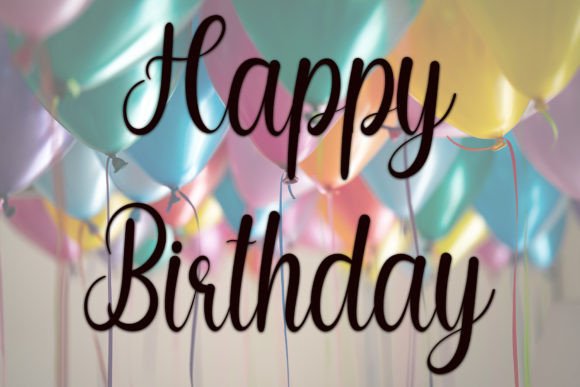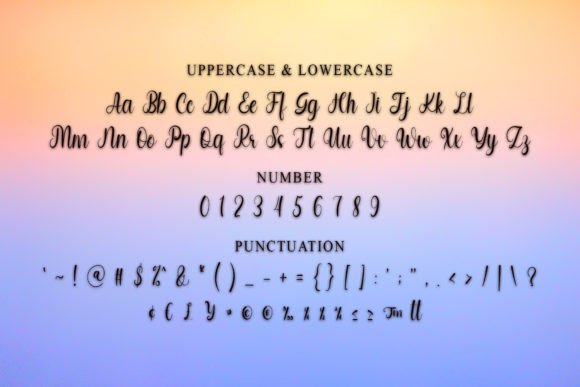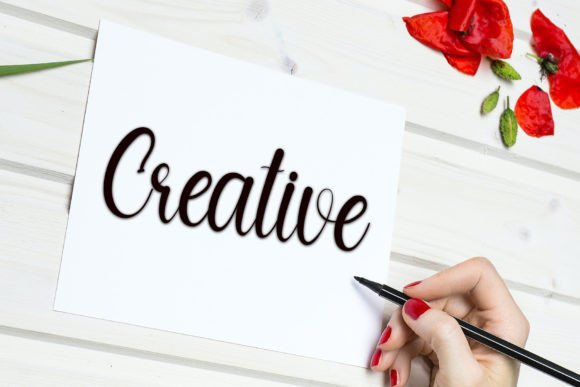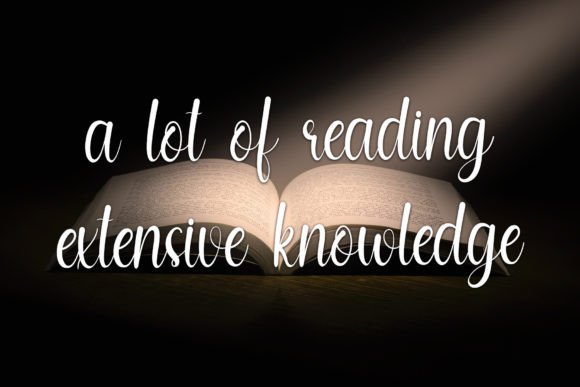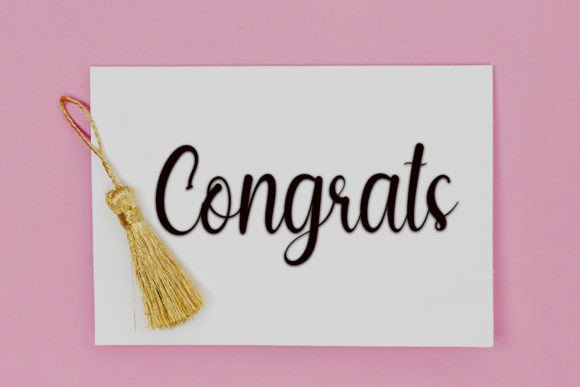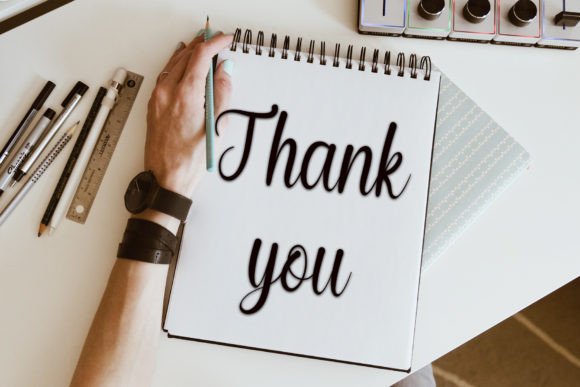
The Perfect Font for Celebrating Life’s Milestones
Have you ever been working on a design project and suddenly, a spark of creativity hits you? Maybe it’s the perfect color palette or the ideal font that brings your idea to life. For many designers, the search for that perfect font can be a thrilling adventure. And today, we’re excited to introduce you to a font that’s sure to make your designs shine – the Birthday Font.
This beautiful handwritten font adds an elegant touch to any project, making it perfect for birthday invitations, party decorations, and more. Its distinct and timeless style is sure to capture the essence of any celebration. As a designer, you’ll love the versatility of the Birthday Font, which can be used for a wide range of creative projects, from wedding designs to baby announcements.
With its unique charm and sophisticated feel, the Birthday Font is a valuable addition to any designer’s toolkit. Whether you’re a seasoned pro or just starting out, this font is sure to help you create spectacular designs that will leave a lasting impression.
Birthday Font Key Features
- Unique Characteristics: The font features colorful and whimsical designs, making it perfect for birthday cards, invitations, and party decorations.
- Font Style: The Birthday Font is a cursive script font with a playful and festive feel.
Birthday Font Review
I recently had the chance to work with the Birthday Font, and I have to say it’s a mixed bag. There are some things that really stand out, but also some limitations that might make it less appealing to some users.
- Unique and playful design: The Birthday Font has a fun, celebratory feel to it that’s perfect for projects related to birthdays, parties, or special occasions.
- High-quality glyphs: The font includes a wide range of characters, including numbers, punctuation, and special symbols, which makes it versatile and easy to use.
- Easy to read: The font is well-designed and easy to read, even at smaller font sizes, which is a must for any font.
- Limited font weights: The Birthday Font only comes in a single weight, which might limit its use in certain projects where more font weights are needed.
- No italics or bold: The font does not include italics or bold variations, which can make it less suitable for projects that require these styles.
- Not suitable for body text: While the font is great for titles and headings, it might not be the best choice for body text due to its playful and decorative nature.
Overall, I think the Birthday Font is a great choice for projects that require a fun and celebratory feel. However, it might not be the best fit for more serious or formal projects. With a bit more variation in font weights and styles, it could be an even more versatile and useful font.
The Birthday Font is commonly used for:
- Birthday invitations and party decorations
- Customized birthday cards and gift tags
- Personalized birthday cakes and cupcakes